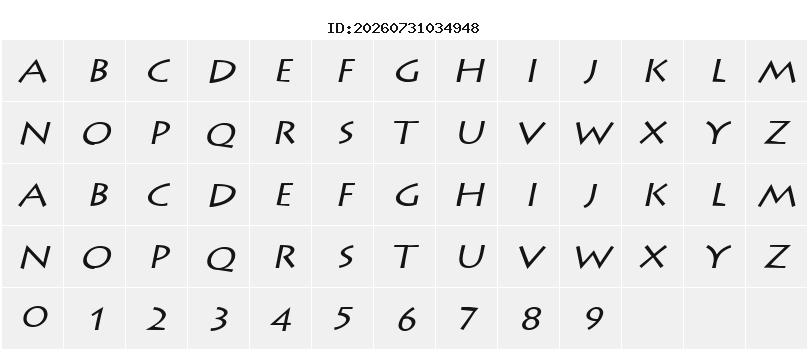
• Font Name: Liste Wide
Liste Wide.ttf is a modern, elegant sans-serif font designed for ultimate readability and visual harmony. Perfect for branding, headlines, web design, and print materials.